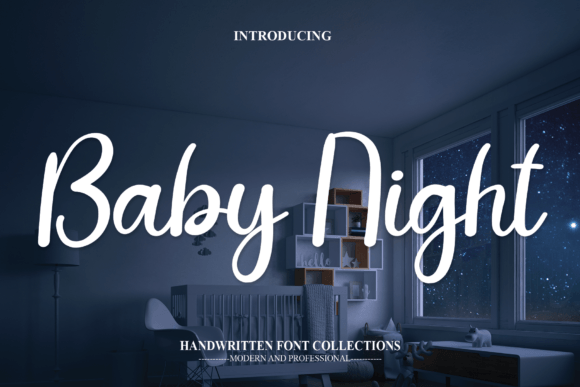
Baby Night Font: The Sweet and Friendly Handwritten Font for Your Design Needs
Are you a designer or crafter looking for a font that can add a touch of sweetness and friendliness to your designs? Look no further than the Baby Night Font! This beautiful handwritten font is perfect for creating wedding invitations, cards, and other designs that require a lovely and personal touch.
What is Baby Night Font?
Baby Night Font is a sweet and friendly handwritten font that is designed to bring a sense of fun and relaxation to your designs. Its unique and charming style makes it ideal for a variety of design projects, from wedding invitations and cards to posters and social media graphics.
Characteristics of Baby Night Font
So, what makes Baby Night Font so special? Here are some of its key characteristics:
- Handwritten style: Baby Night Font has a beautiful handwritten style that gives it a personal and unique touch.
- Sweet and friendly: The font has a sweet and friendly feel to it, making it perfect for designs that require a touch of warmth and personality.
- Fun and relaxed: Baby Night Font is fun and relaxed, making it ideal for designs that require a playful and casual touch.
- Highly legible: Despite its handwritten style, Baby Night Font is highly legible, making it easy to read and understand.
Uses of Baby Night Font
Baby Night Font is a versatile font that can be used for a variety of design projects, including:
- Wedding invitations: The font’s sweet and friendly style makes it perfect for wedding invitations, adding a touch of romance and personality to your designs.
- Cards: Baby Night Font is ideal for creating beautiful and personalized cards for special occasions, such as birthdays, anniversaries, and holidays.
- Posters: The font’s fun and relaxed style makes it perfect for creating eye-catching posters for events, promotions, and other marketing campaigns.
- Social media graphics: Baby Night Font can be used to create engaging and personalized social media graphics, such as Facebook posts, Instagram stories, and Twitter headers.
Tips for Using Baby Night Font
Here are some tips for using Baby Night Font in your designs:
- Pair it with other fonts: Baby Night Font can be paired with other fonts to create a unique and interesting contrast. Try pairing it with a sans-serif font for a modern and elegant look.
- Use it for headings and titles: The font’s sweet and friendly style makes it perfect for headings and titles. Use it to add a touch of personality to your designs.
- Experiment with colors: Baby Night Font can be used with a variety of colors to create different moods and effects. Try experimenting with pastel colors for a soft and romantic look.
In conclusion, Baby Night Font is a beautiful and versatile font that can add a touch of sweetness and friendliness to your designs. Its unique handwritten style, sweet and friendly feel, and high legibility make it perfect for a variety of design projects, from wedding invitations and cards to posters and social media graphics. With its many uses and tips for use, Baby Night Font is a must-have font for designers and crafters looking to add a personal touch to their designs.